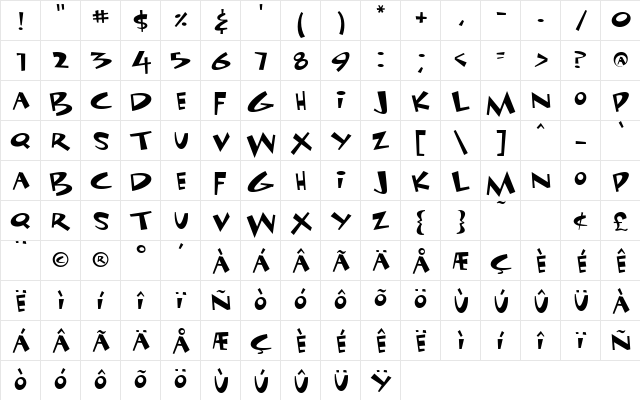
Funhouse Regular
Design Context for Funhouse Typeface
Funhouse has an approachable, lighthearted character — its loose, expressive forms are well-suited to children's content, casual branding, and fun-first design.
Great for children's books, toy packaging, family event branding, and casual consumer-facing design.
Font Pairing: Pairs well with a rounded or humanist sans for body copy, maintaining the friendly tone without relying on Funhouse to carry extended reading.
Pro Tip: Avoid using Funhouse for long passages of text — it works best for headlines, labels, and short calls to action.